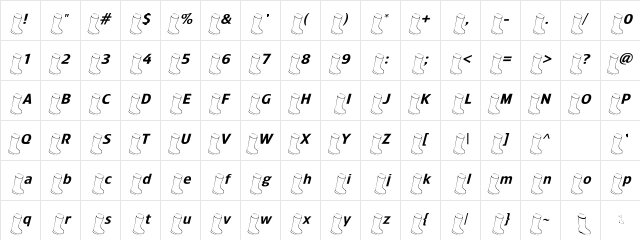
OldBootSlanted Regular
Design Context for OldBootSlanted Typeface
OldBootSlanted offers clean, dependable letterforms without strong stylistic allegiance, making it a practical choice for designers who need flexibility. Its italic angle brings a sense of urgency and motion to the letterforms.
Pro Tip: Use OldBootSlanted for emphasis, pull quotes, and subheadings where its slanted energy can add rhythm to the layout.